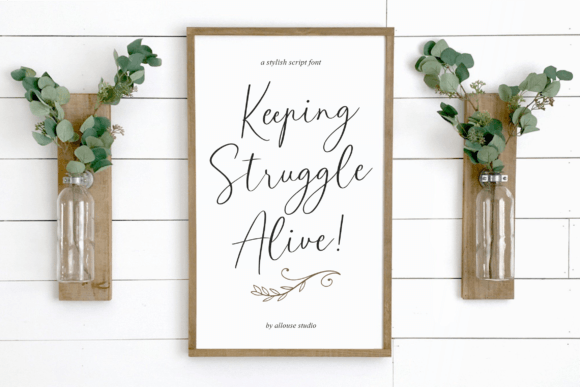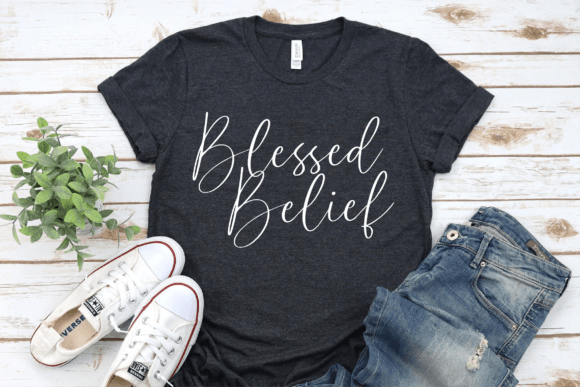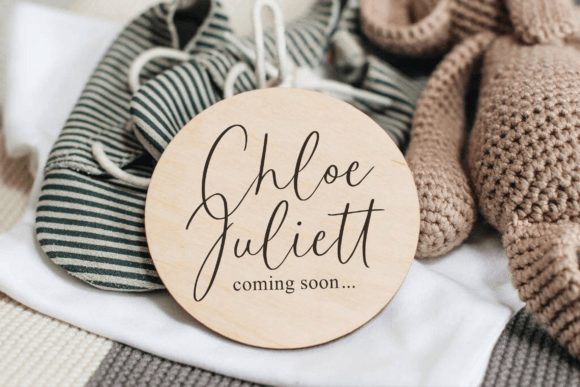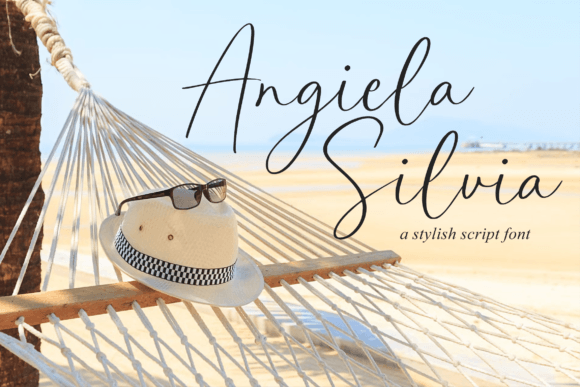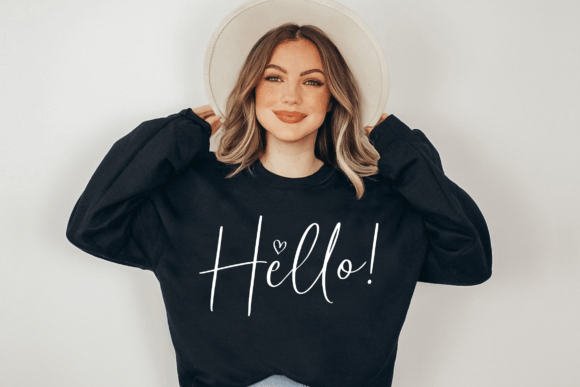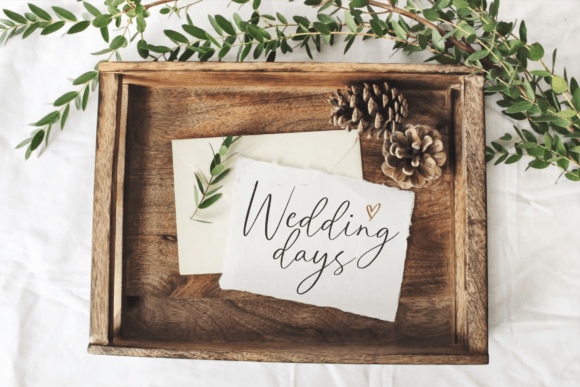
Billiongraph Font: Elevate Your Designs with Elegant Handwritten Style
In the world of design, typography plays a crucial role in conveying messages, evoking emotions, and creating lasting impressions. For designers and crafters seeking a font that combines beauty, elegance, and versatility, Billiongraph Font is an exceptional choice. This stunning handwritten font is perfect for a wide range of applications, from product packaging and branding projects to magazines, social media posts, weddings, and more.
The Beauty of Billiongraph Font
Billiongraph Font boasts a unique, handwritten style that exudes sophistication and charm. Its elegant strokes, precise lettering, and flowing connections make it an ideal choice for designers looking to add a touch of personality to their work. Whether you’re creating a brand identity, designing a wedding invitation, or crafting a social media post, Billiongraph Font is sure to impress.
Key Features of Billiongraph Font
- Handwritten style: Billiongraph Font features a beautiful, handwritten style that adds a personal touch to any design.
- Elegant strokes: The font’s elegant strokes and precise lettering make it perfect for creating sophisticated designs.
- Versatile: Billiongraph Font is suitable for a wide range of applications, from product packaging to social media posts.
- Easy to read: Despite its elegant style, Billiongraph Font remains easy to read, making it perfect for body text and headlines.
Use Cases for Billiongraph Font
Billiongraph Font is an incredibly versatile font that can be used in various design projects. Here are some popular use cases:
- Product packaging: Add a touch of elegance to your product packaging with Billiongraph Font.
- Branding projects: Create a lasting impression with Billiongraph Font, perfect for logos, business cards, and more.
- Magazines and editorials: Use Billiongraph Font to add a touch of sophistication to your magazine or editorial design.
- Social media posts: Stand out on social media with Billiongraph Font, perfect for creating engaging and stylish posts.
- Weddings and events: Make your wedding or event stationery truly special with Billiongraph Font.
Tips for Using Billiongraph Font
To get the most out of Billiongraph Font, here are some tips to keep in mind:
- Pair with contrasting fonts: Pair Billiongraph Font with contrasting fonts to create visual interest and hierarchy.
- Experiment with colors: Try Billiongraph Font with different colors to add depth and emotion to your design.
- Use for headlines and titles: Billiongraph Font is perfect for headlines and titles, adding a touch of elegance to your design.
Billiongraph Font is a stunning handwritten font that offers elegance, versatility, and charm. Whether you’re a designer, crafter, or DIY enthusiast, this font is sure to elevate your designs and make them stand out. With its wide range of applications and ease of use, Billiongraph Font is an excellent addition to any design toolkit.